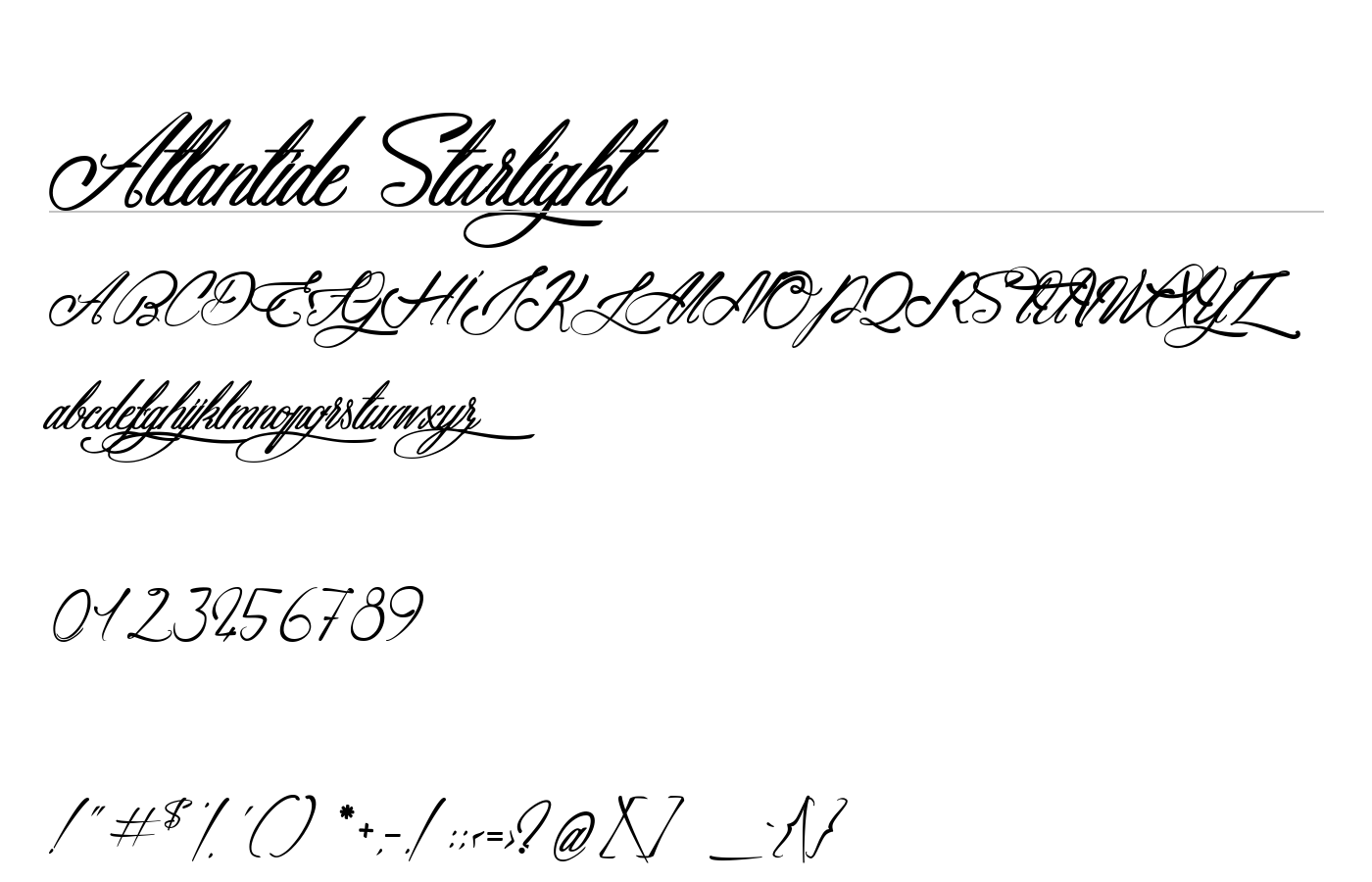
Atlantide Starlight is an elegant, script-style font characterized by its delicate, flowing letterforms and fine stroke contrast. Its slender, handwritten appearance with graceful swashes conveys a sophisticated and luxurious feel, making it ideal for invitations, branding, and decorative uses where a refined and stylish impression is desired. This font works best in headlines or short text where its intricate details can shine without compromising readability.
Atlantide Starlight Font
About Atlantide Starlight Font